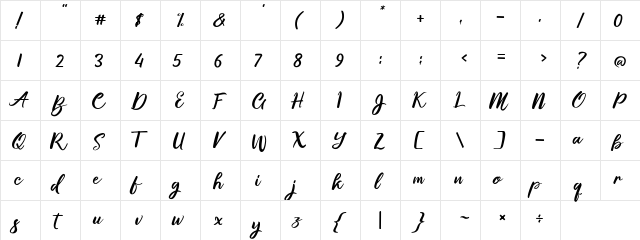
Gallisia Design Script Regular
Design Context for Gallisia Design Script Typeface
Gallisia Design Script brings a calligraphic fluidity to the page — its connecting strokes and expressive curves give it an unmistakably human quality.
Font Pairing: Combine Gallisia Design Script with a simple geometric sans for maximum contrast — the tension between flowing curves and clean structure is a classic typographic pairing.
Pro Tip: Use Gallisia Design Script for short runs of text — names, titles, or taglines. Extended body copy in script faces tires the eye quickly.